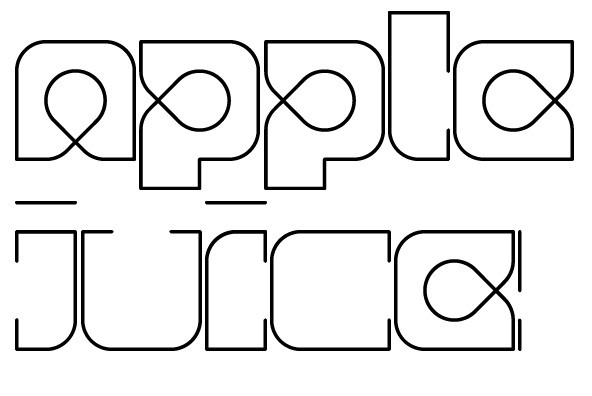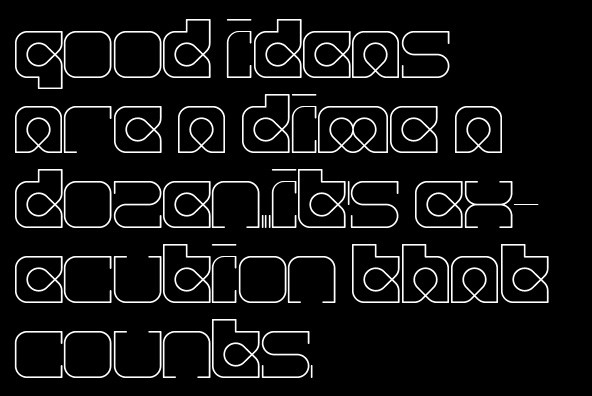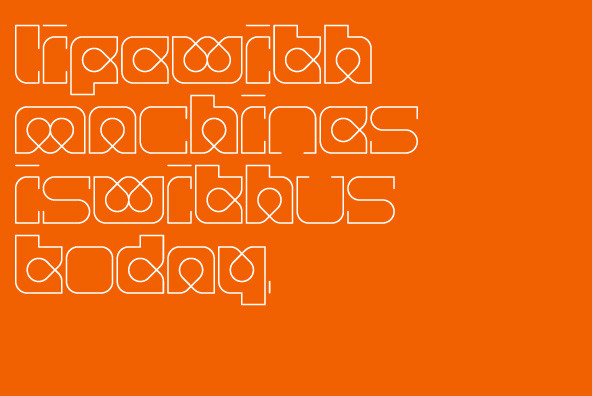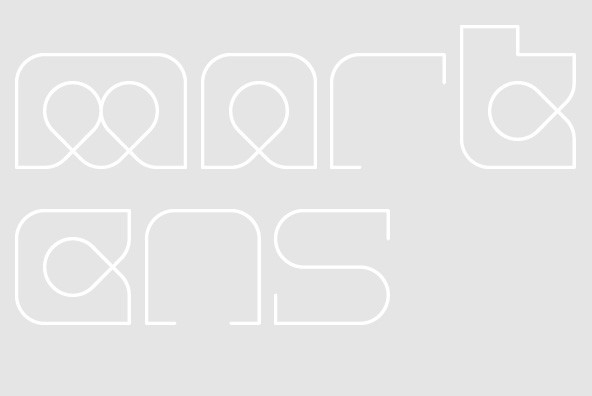
Olivaw is a display typeface which was a kind of experiment with simple geometrical shapes and structures. The aim was to create a retro/futuristic 60s sci-fi feeling. This type works best in short words, logos, whole page sized magazine illustrations.